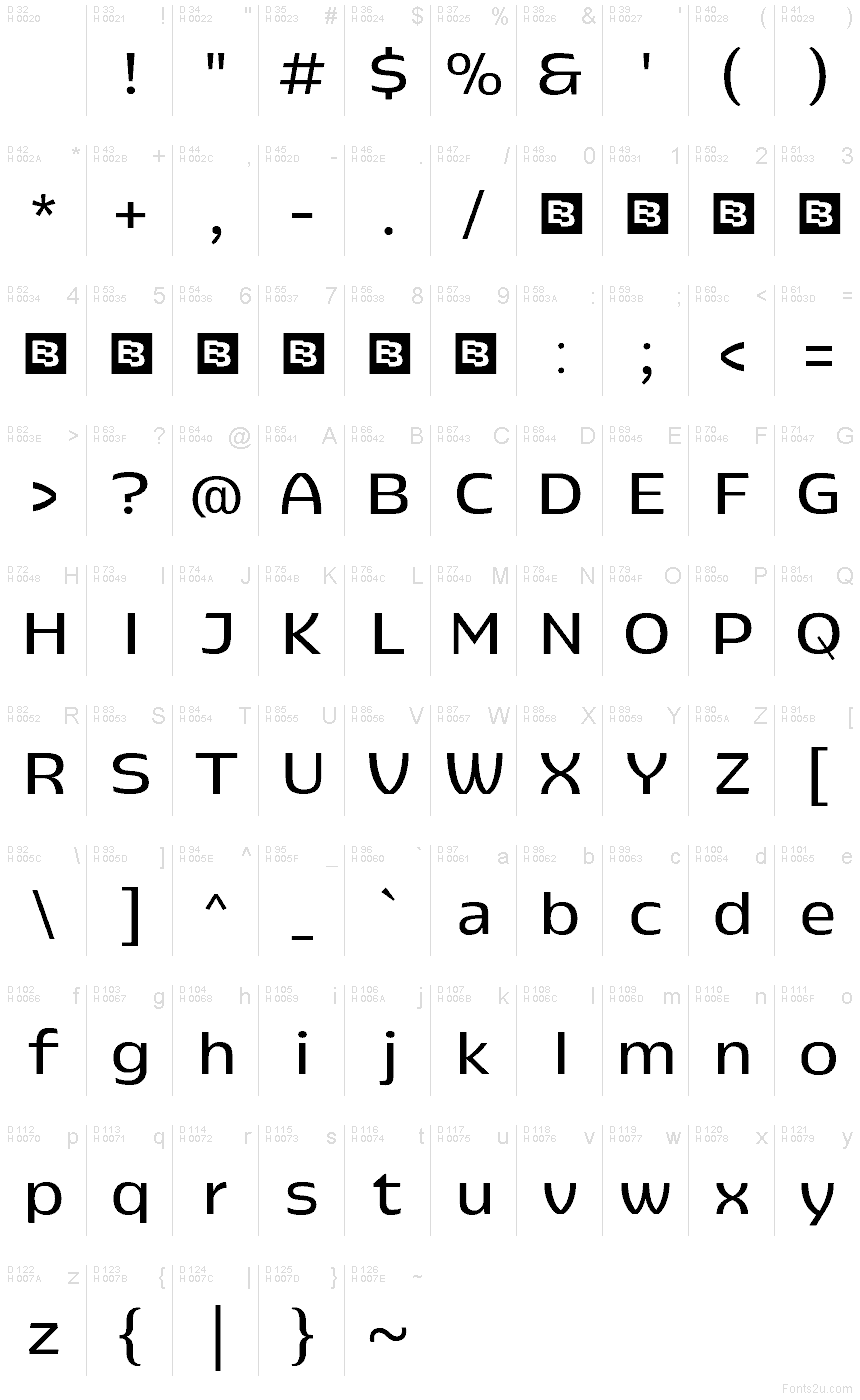
Pocas Trial Regular
Pocas font by Eko Bimantara is a free sans serif font that solves the tricky brief of sounding friendly without losing clarity. Its smooth curves, open counters, and even rhythm read cleanly on screens while keeping a warm, human touch. The strokes feel steady and unforced, giving labels, interfaces, and brand copy a calm, confident voice.
Using Pocas, you’ll get fuss-free legibility for app UI, editorial body text, startup pitch decks, signage, packaging, and social posts. The spacing holds together in tight layouts yet breathes nicely in longer paragraphs, so it scales with your needs. For a simple pairing, set headlines in a crisp serif and let this free font handle the body at 12–14 pt with modest tracking.